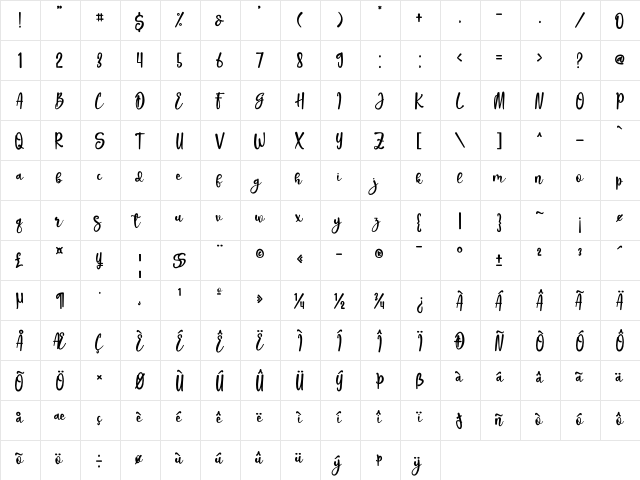
Unpossed Regular
| Designer | Arief Tri Sulistiyono |
Design Context for Unpossed Typeface
Unpossed is a composed and adaptable typeface that performs quietly and consistently across a wide range of design contexts.